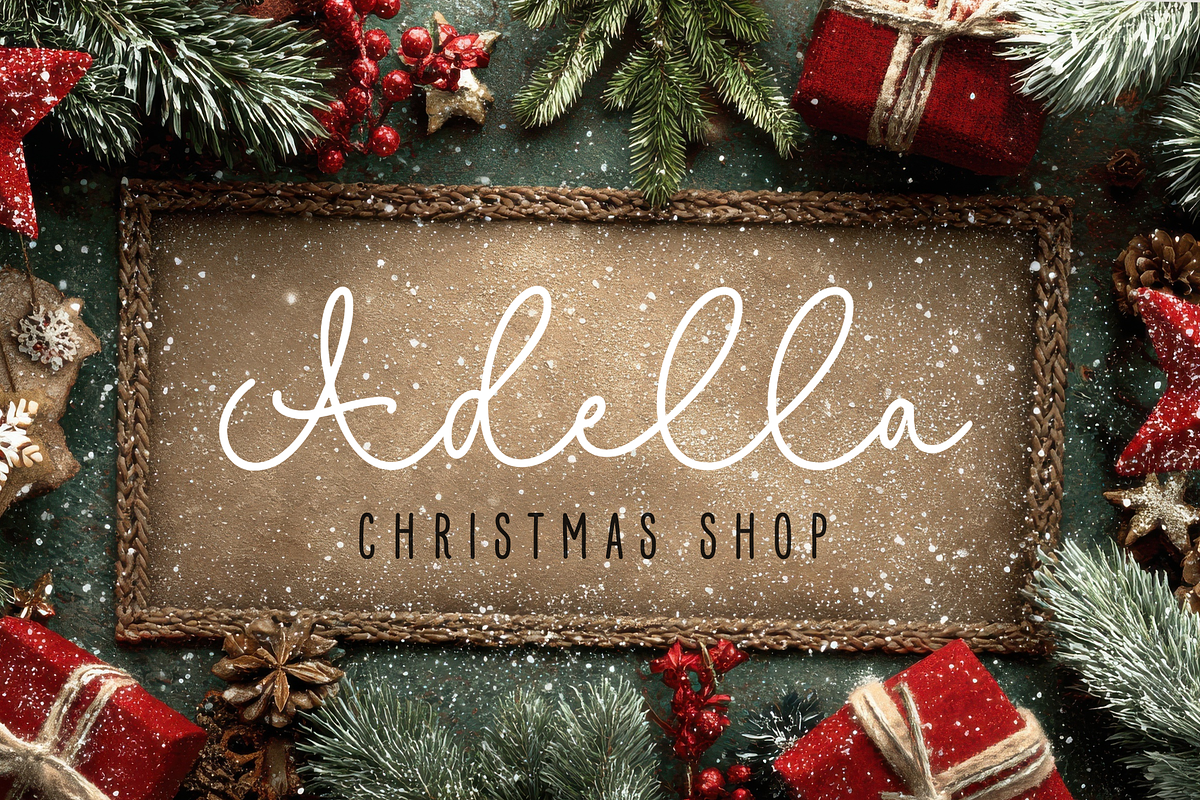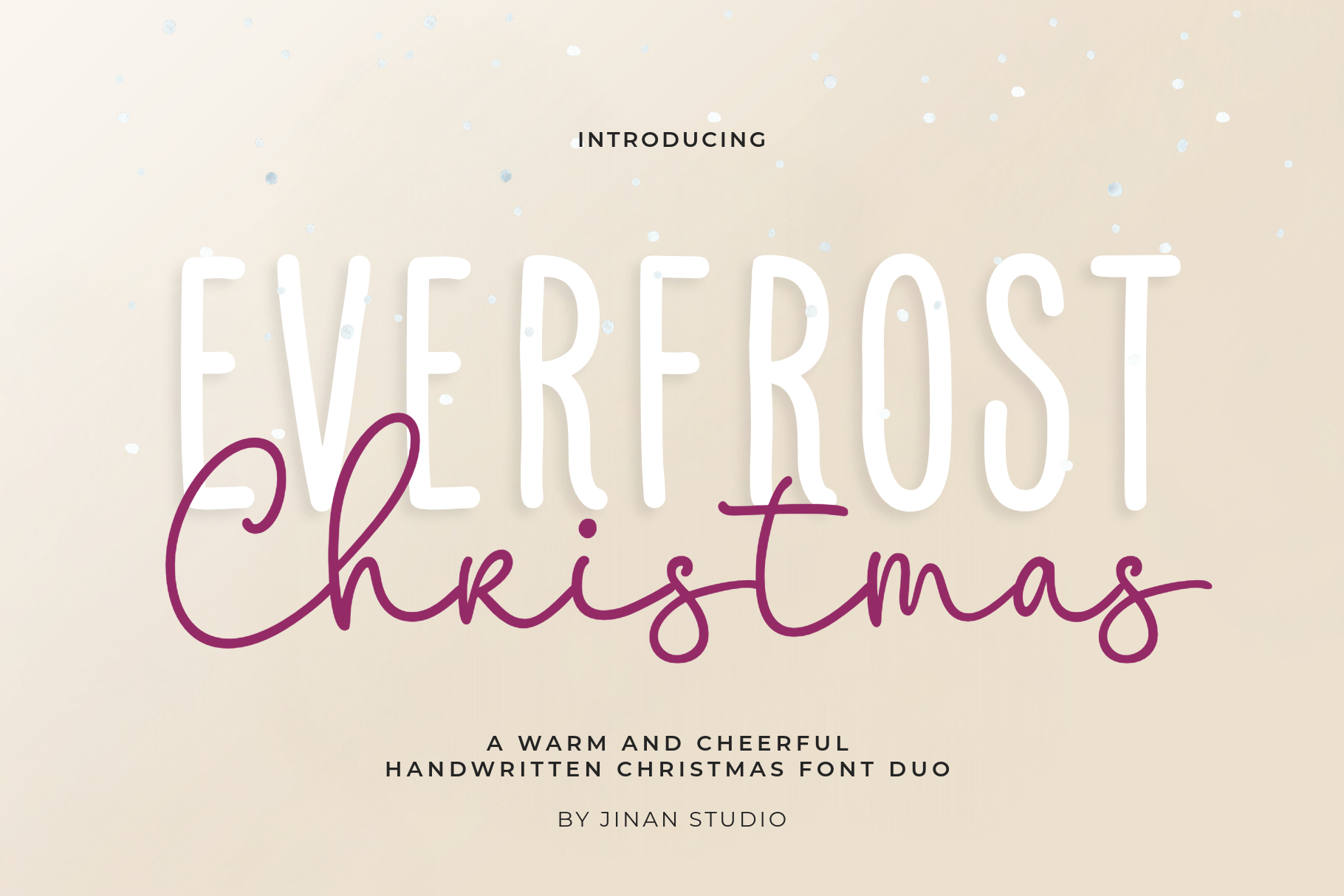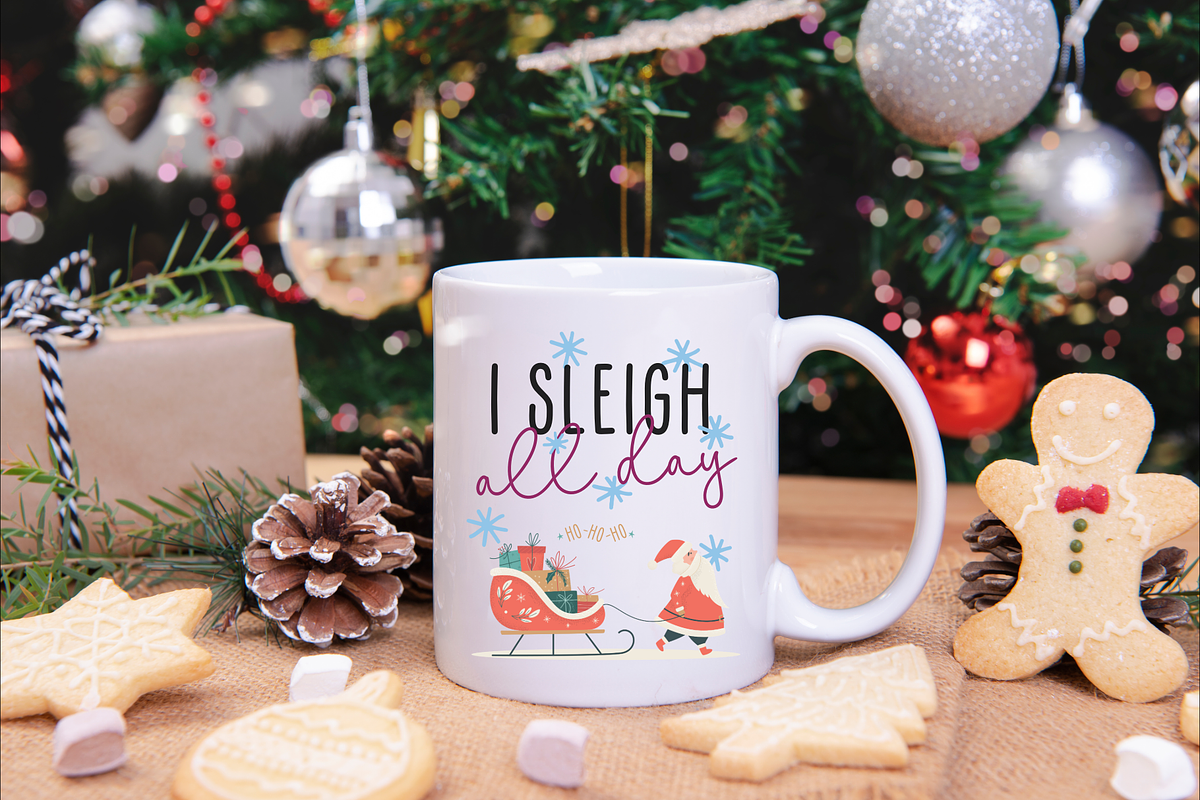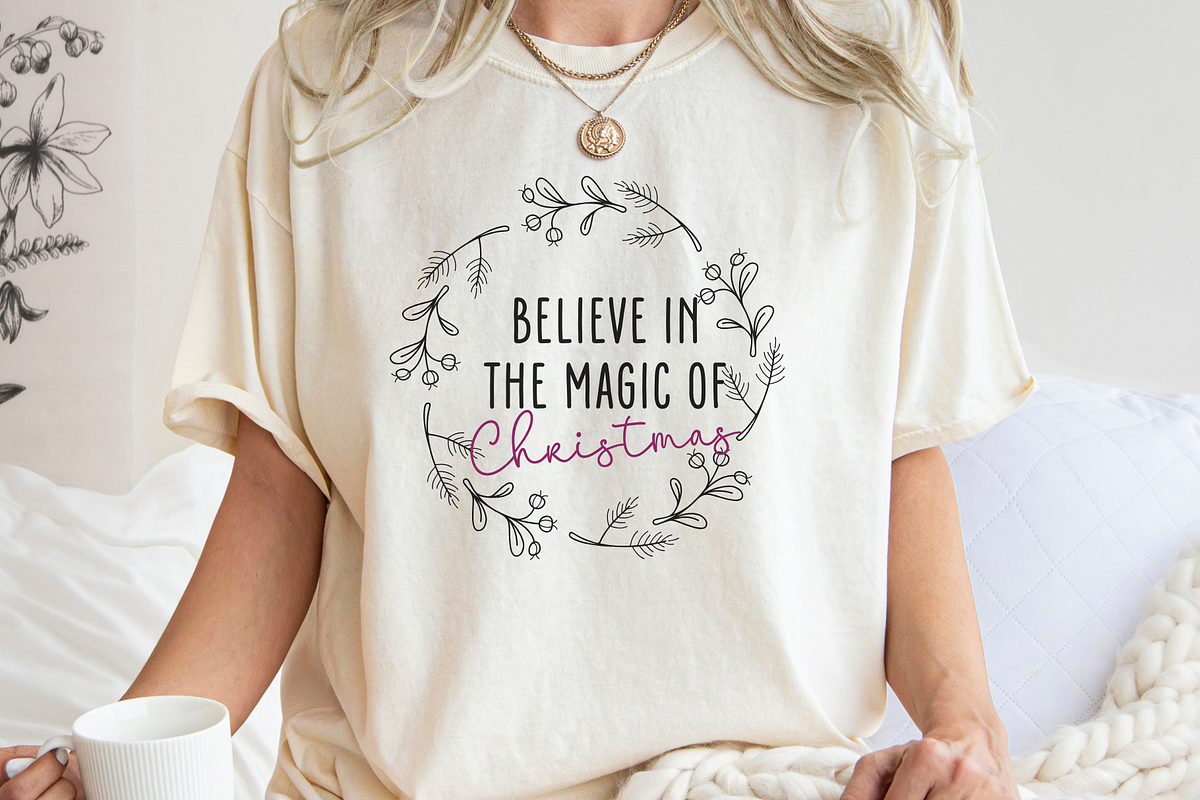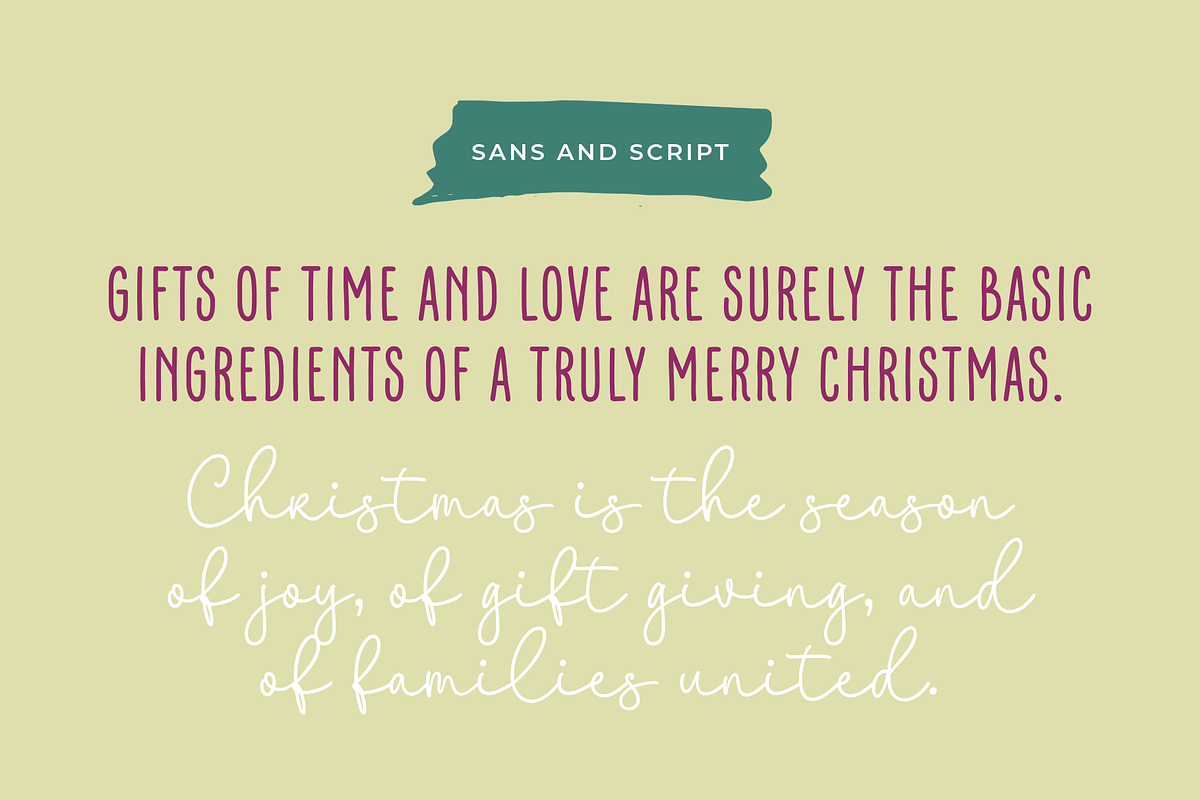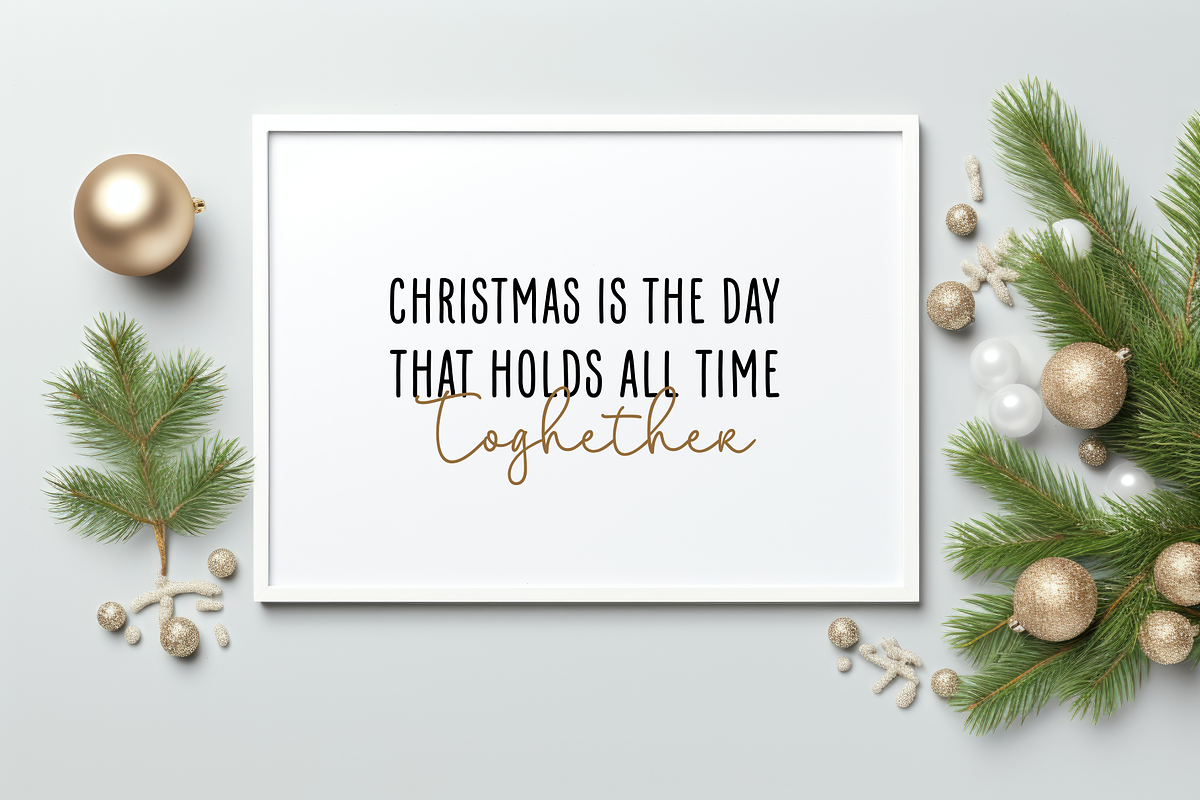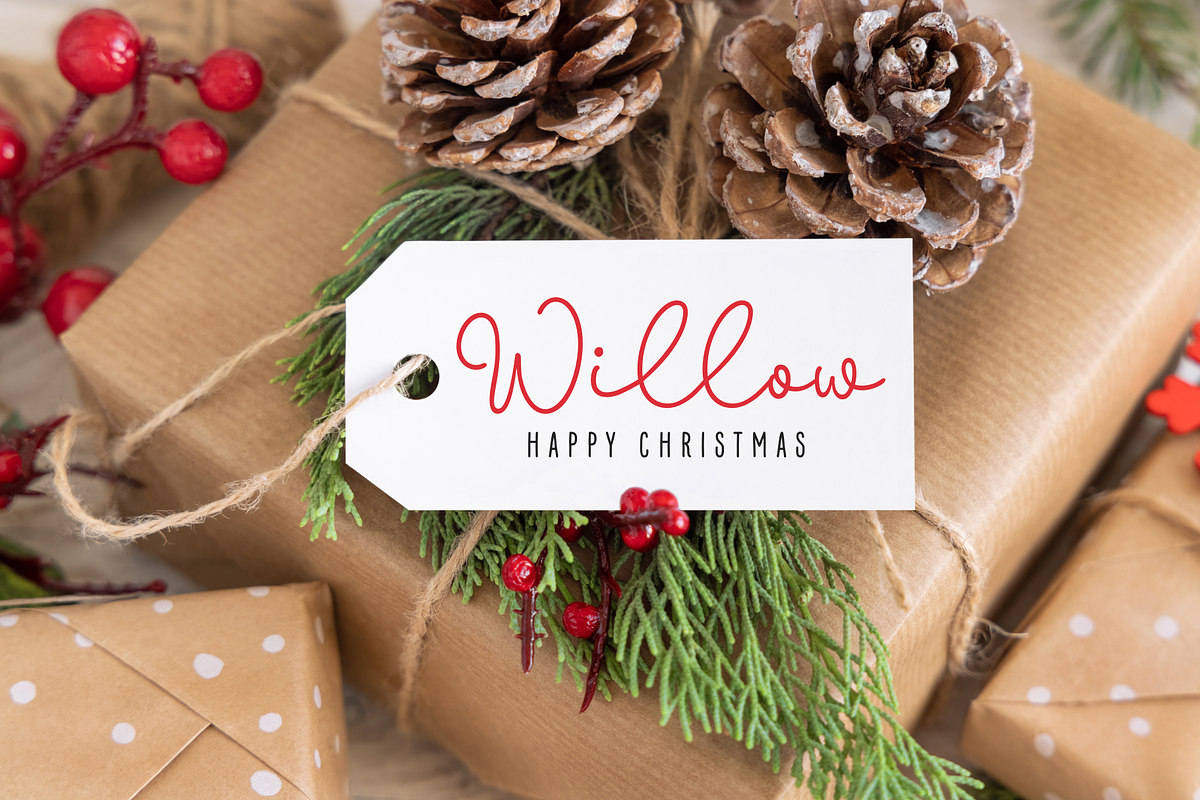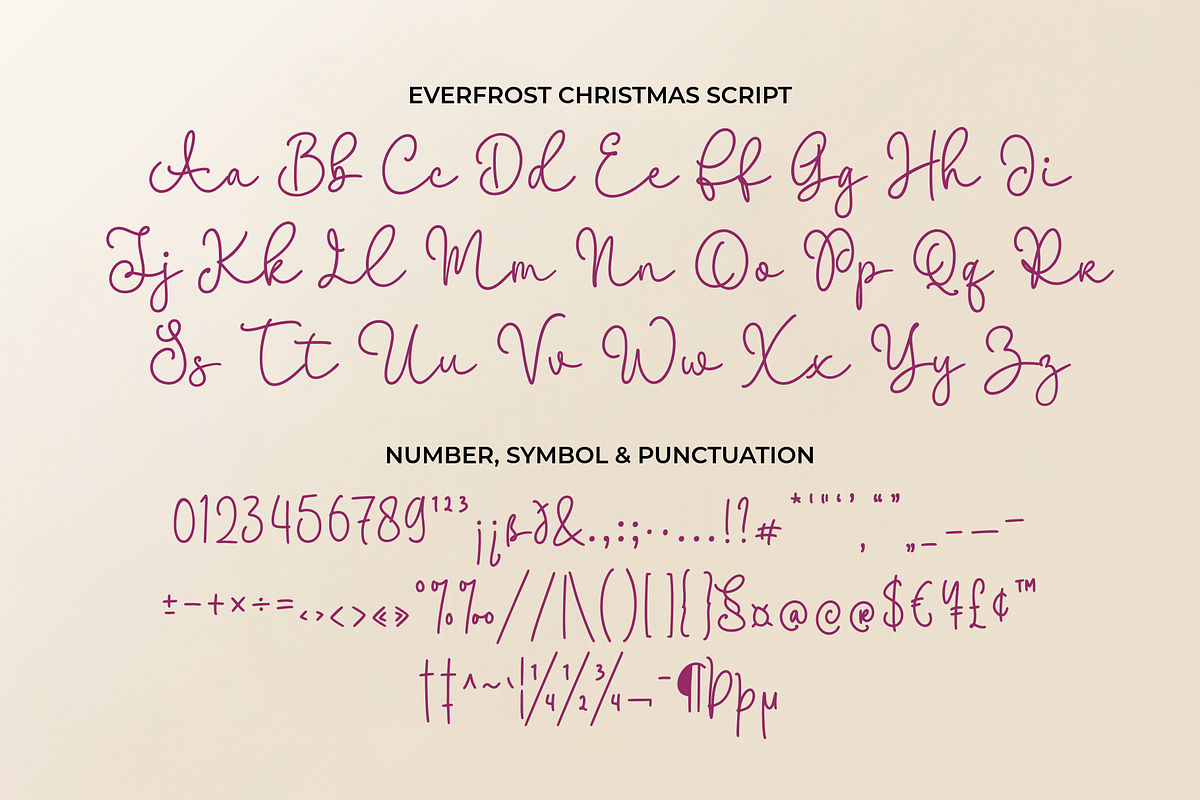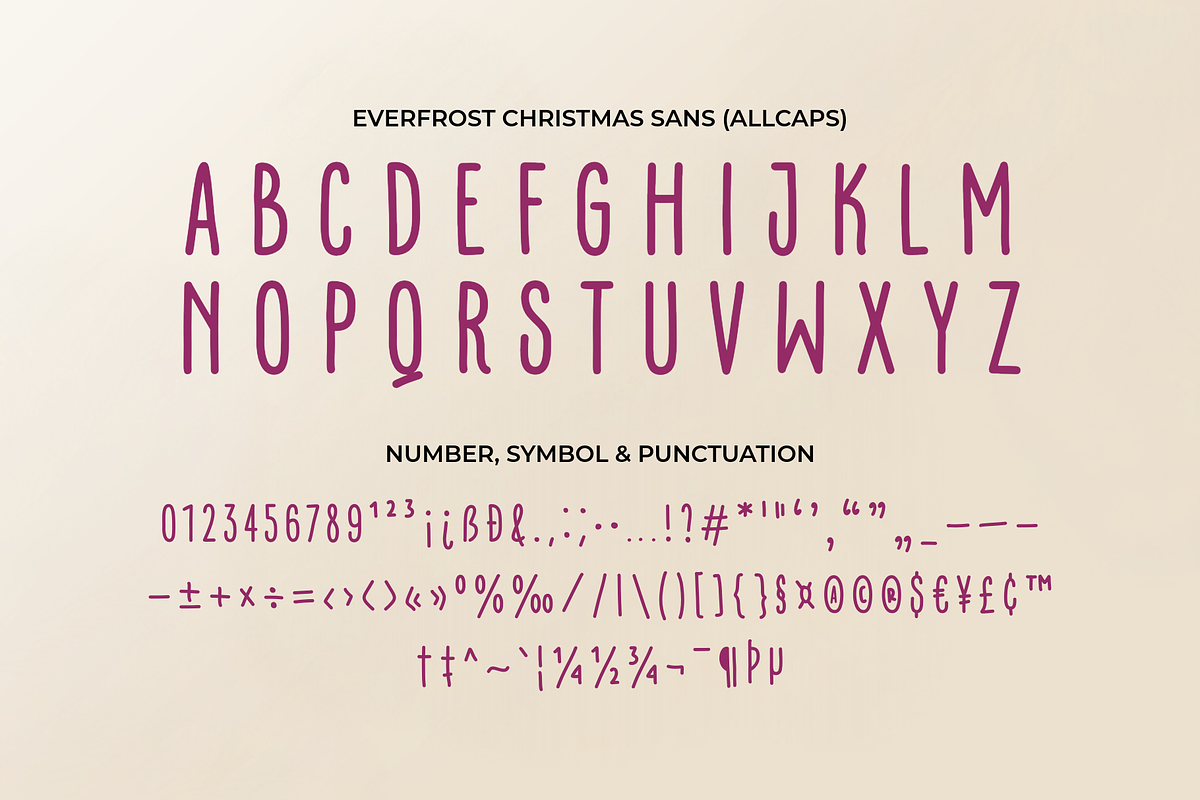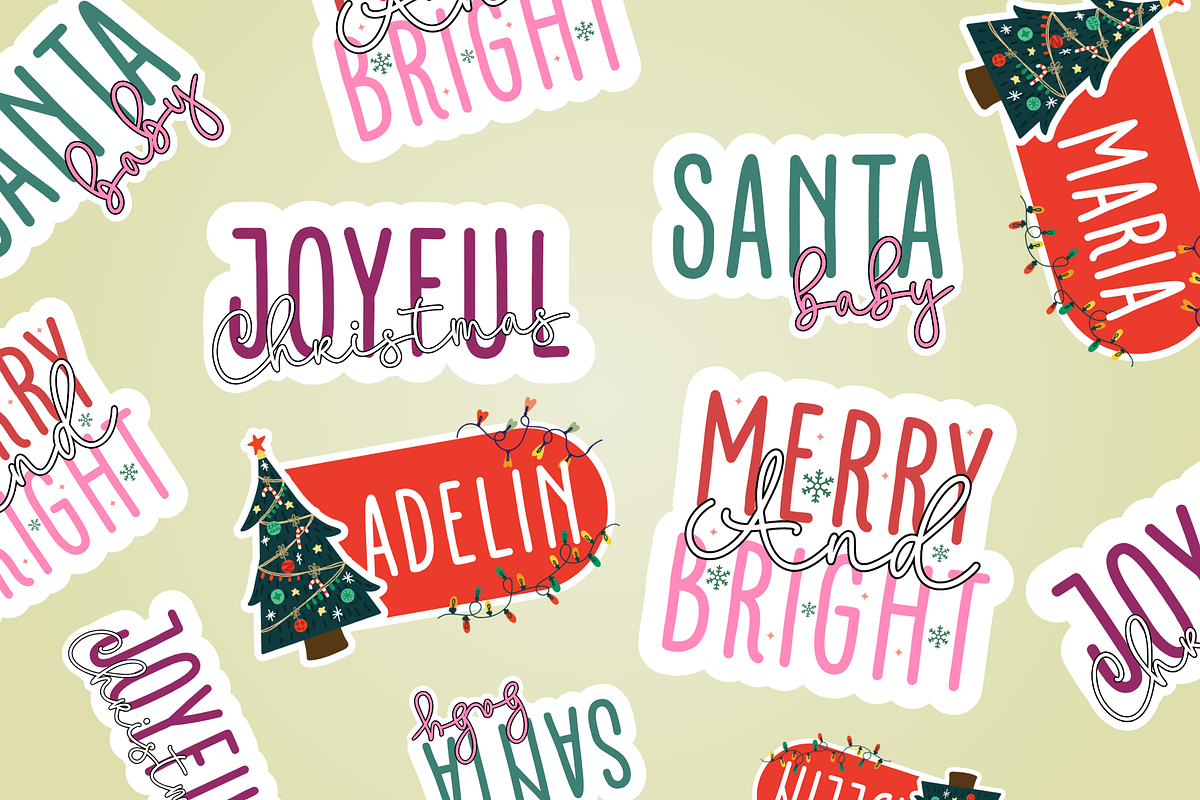
Everfrost Christmas - A Font Duo
Everfrost Christmas is a warm and cheerful handwritten Christmas font duo designed to bring a cozy holiday feeling to your designs. This set combines a clean, tall sans serif display font with a smooth and elegant script, creating a perfect balance between modern simplicity and festive charm.
Perfect for Christmas branding, greeting cards, holiday quotes, invitations, packaging, social media posts, apparel, and seasonal decorations. Everfrost Christmas works beautifully for both playful and elegant projects, making your holiday designs feel friendly, stylish, and full of joy.
Create magical Christmas designs effortlessly with this versatile and festive font duo.
- A set of uppercase and lowercase glyphs (allcaps sans version)
- Number, symbol, and punctuation